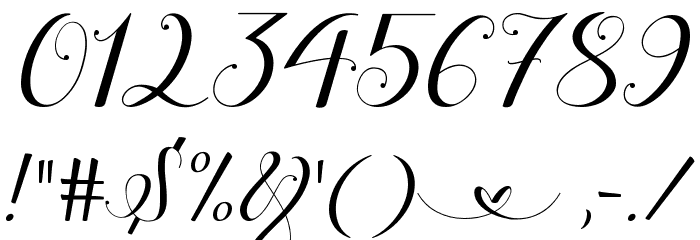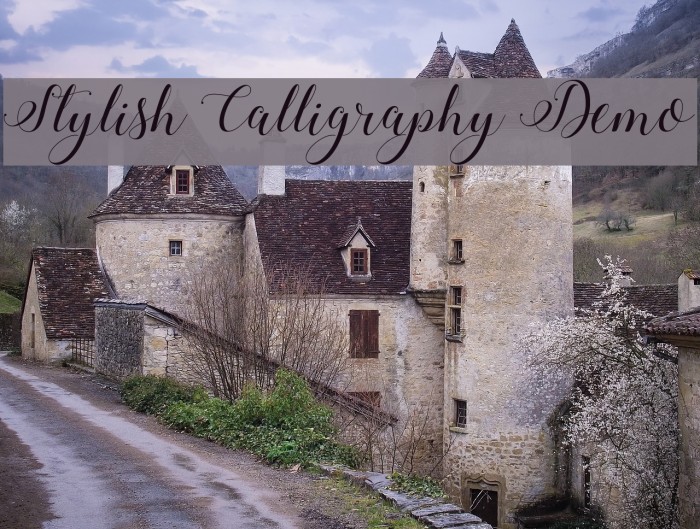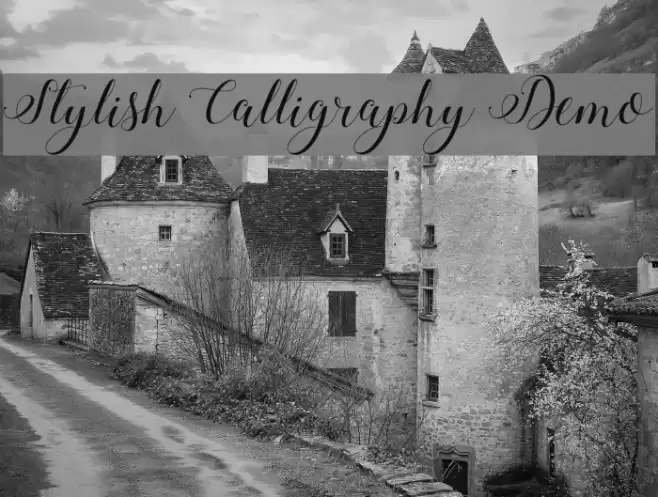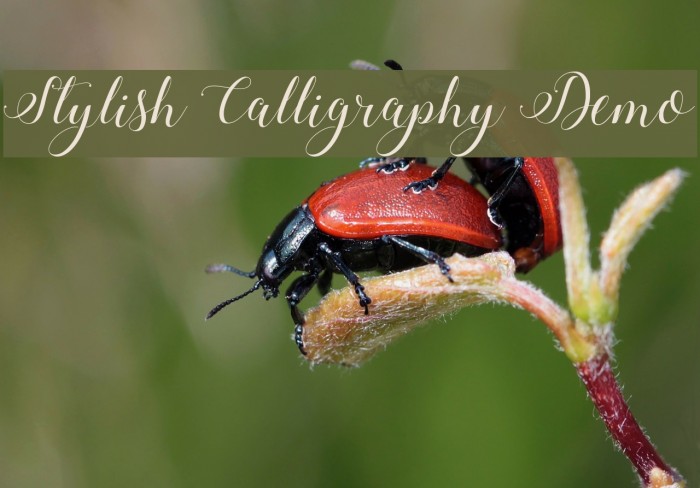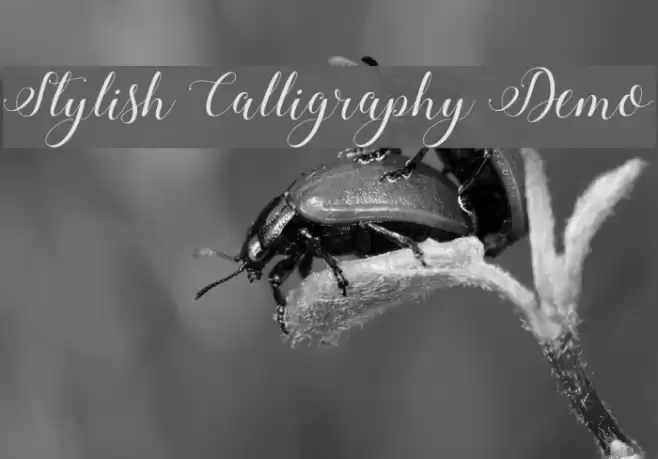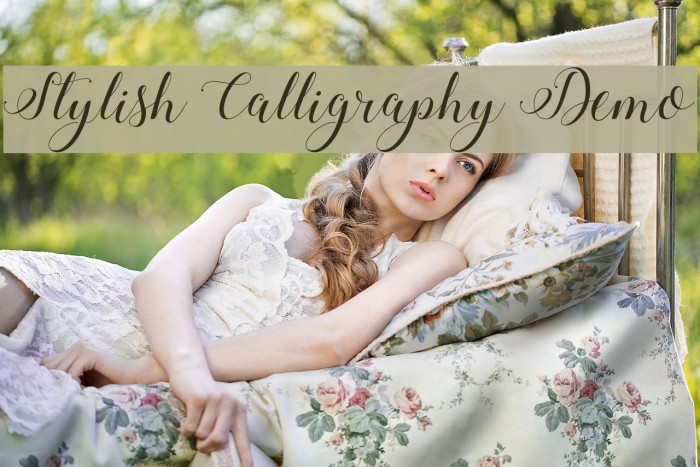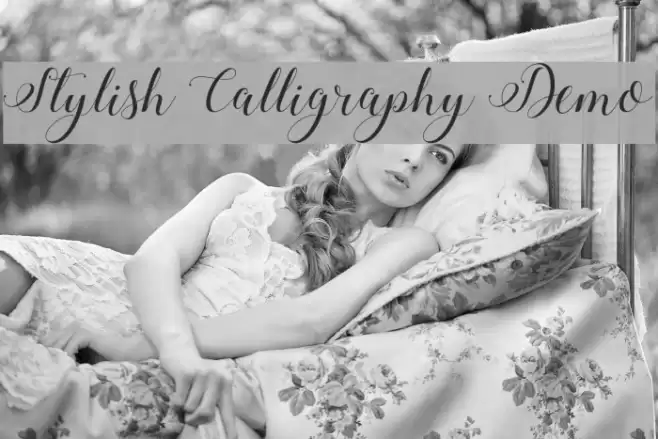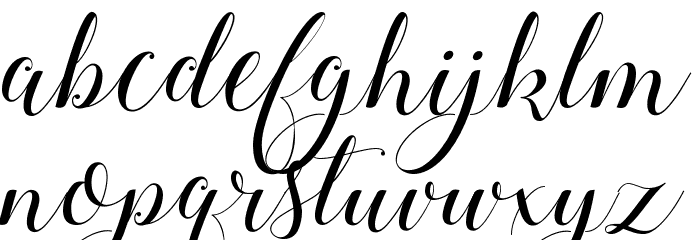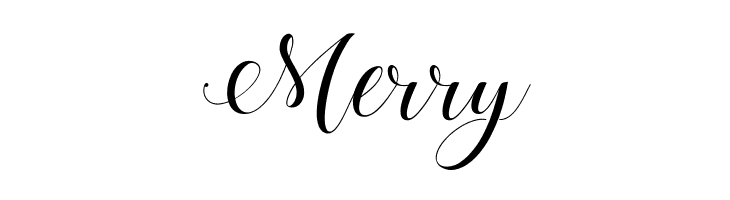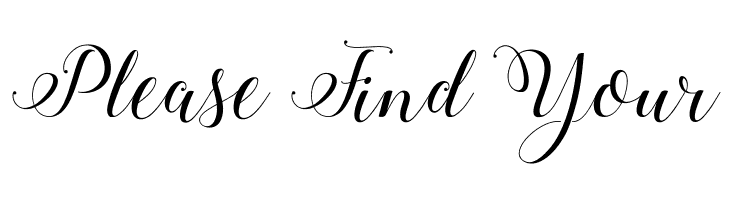
Stylish Calligraphy Demo Font
Stylish Calligraphy Demo Description
This elegant calligraphy font features a flowing, cursive style with intricate loops and flourishes. The uppercase letters are adorned with decorative swashes, giving them a sophisticated and artistic appearance. The lowercase letters maintain a consistent fluidity, enhancing the overall graceful aesthetic. Numbers and special characters are designed with the same attention to detail, ensuring a cohesive look across all elements. The font's high contrast between thick and thin strokes adds to its dramatic flair, making it ideal for projects that require a touch of elegance and refinement.
An elegant calligraphy font with flowing cursive letters and decorative swashes from Uncategorized fonts.
• Proposed Projects: Wedding invitations, luxury branding, greeting cards, and elegant packaging designs.